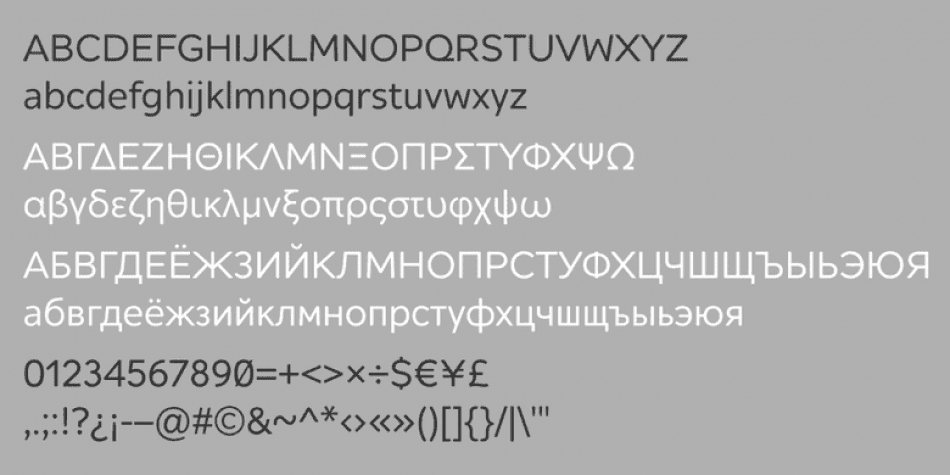
Alleyn Pro Font Family is an update of Alleyn typeface created in response to a suggestion to expand the character set and include Vietnamese. These fonts cover most Latin, Greek, Cyrillic languages (approx. 275 total), with spacing calculated to optimize reading of text at different sizes.